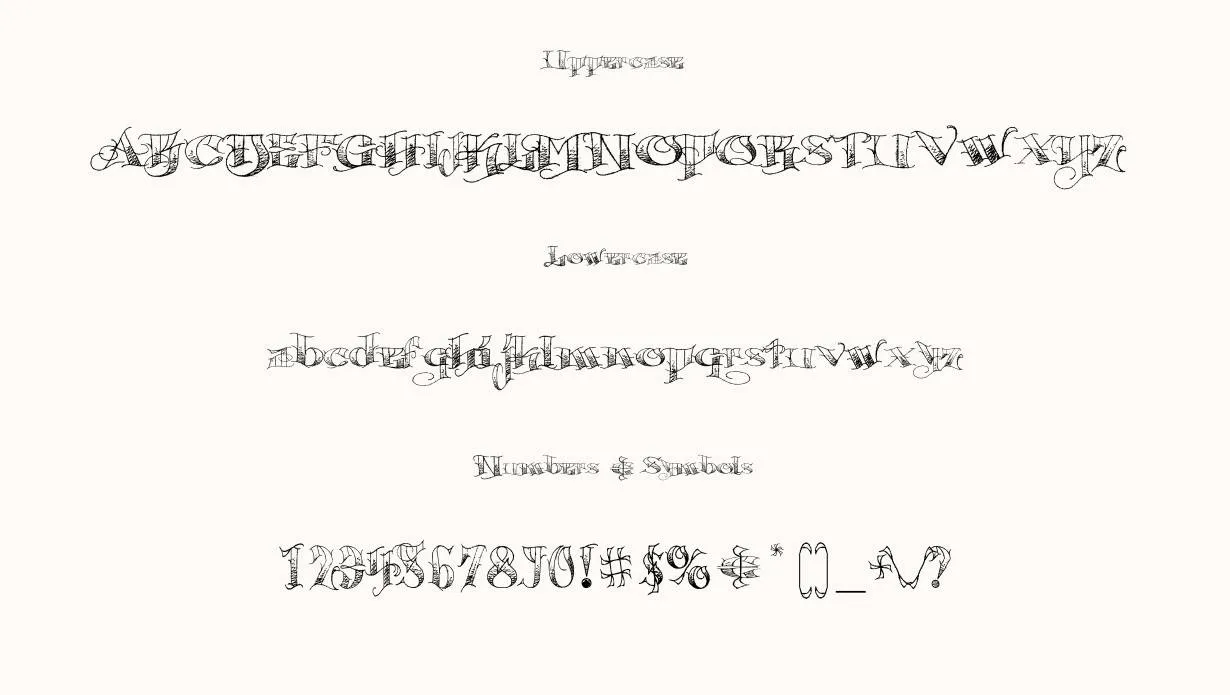
Paul’s Circus Font is a type of writing that resembles the colorful, playful lettering found on old circus posters and signs. It has a whimsical and vintage vibe, reminiscent of the golden age of circuses. This font captures the spirit of funfair advertisements, adding a touch of nostalgia to designs.
It’s often employed in projects that aim to evoke a sense of old-world charm or a light-hearted, playful mood. The squirrel font can be used to create exceptional designs with significant impact. The letters have a unique flair with ornate and decorative elements, making it a popular choice for creative designs seeking a retro, carnival-like aesthetic.
| Name | Paul's Circus Font |
| Designer | Nathan Williams |